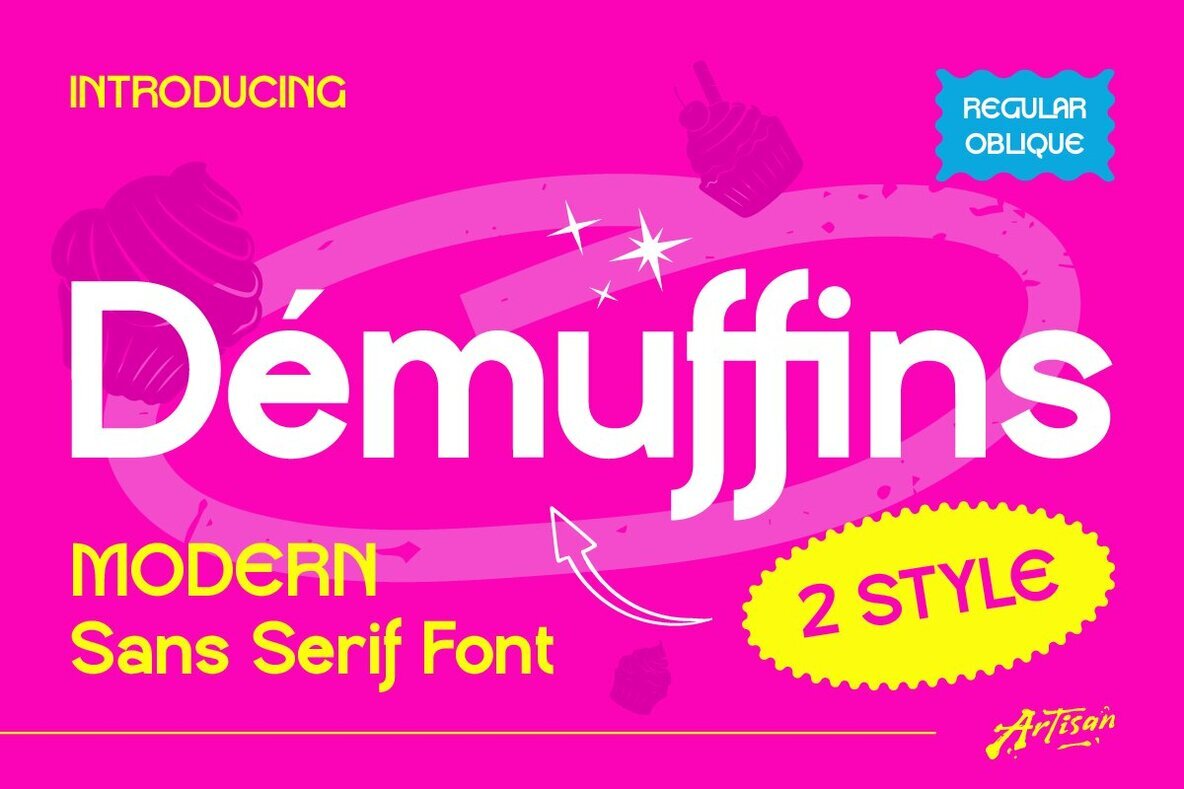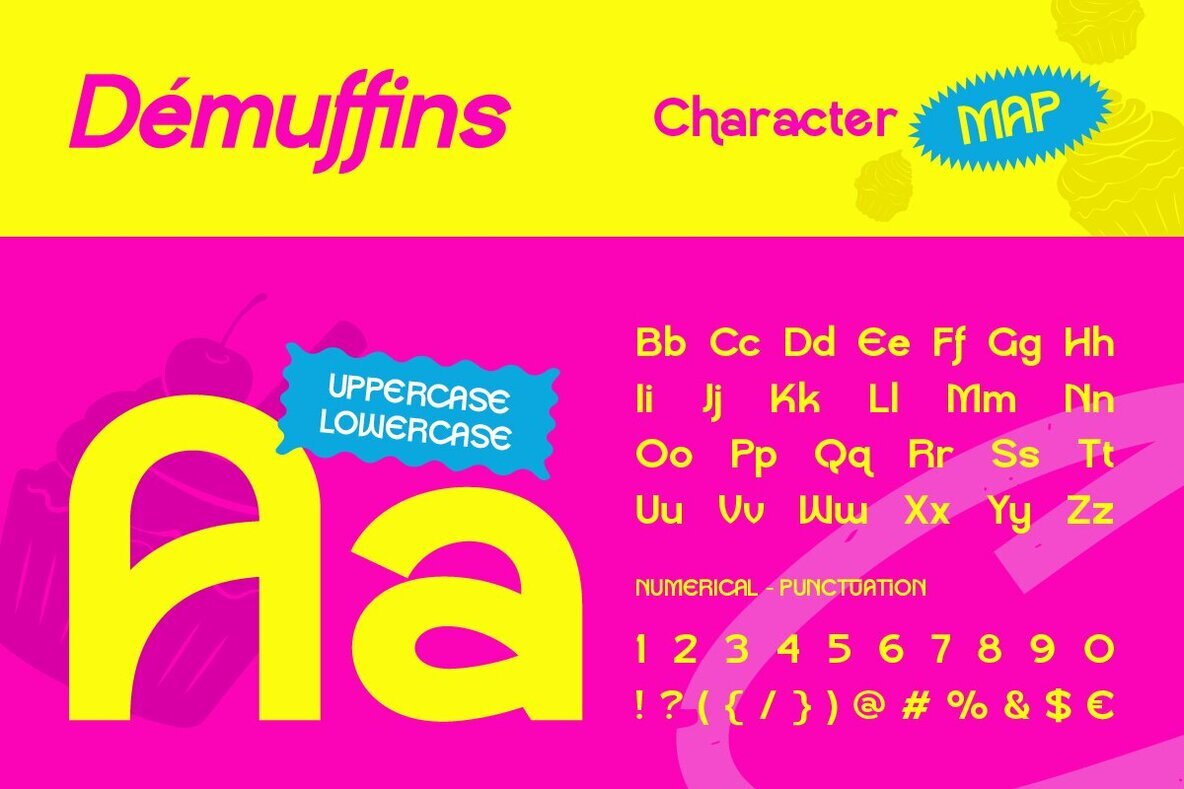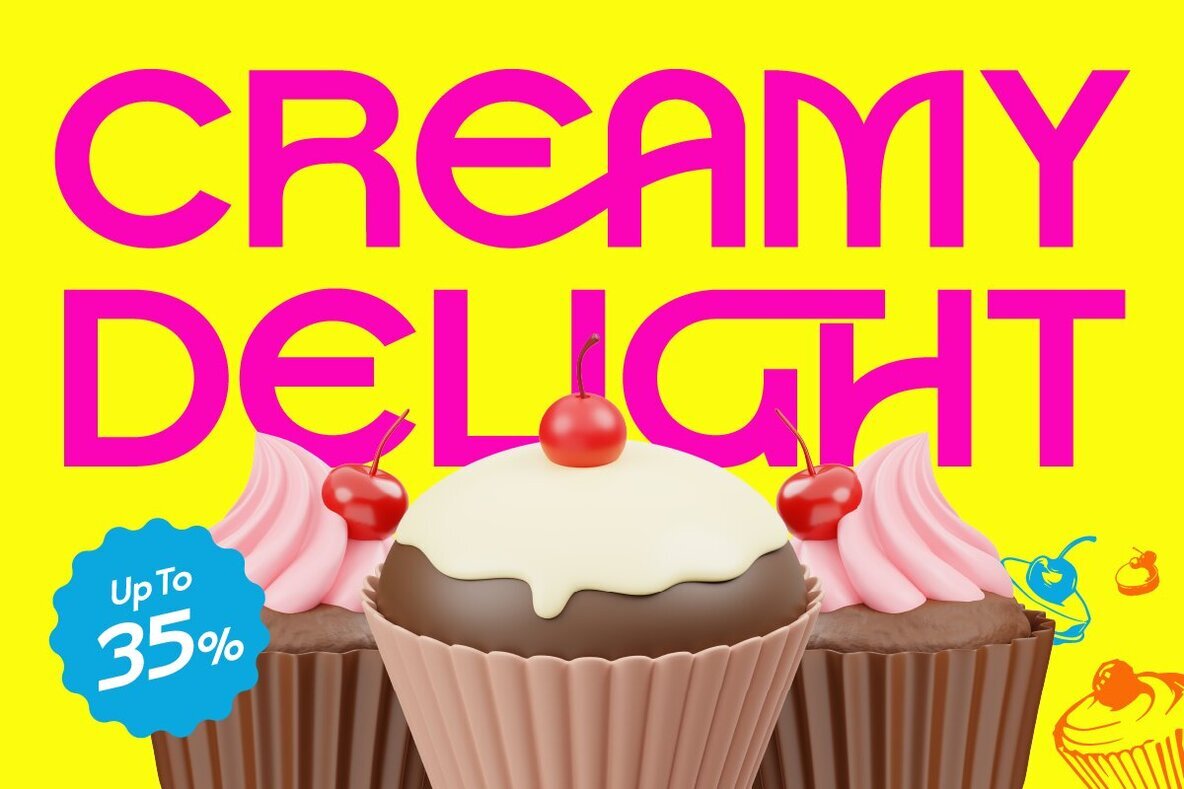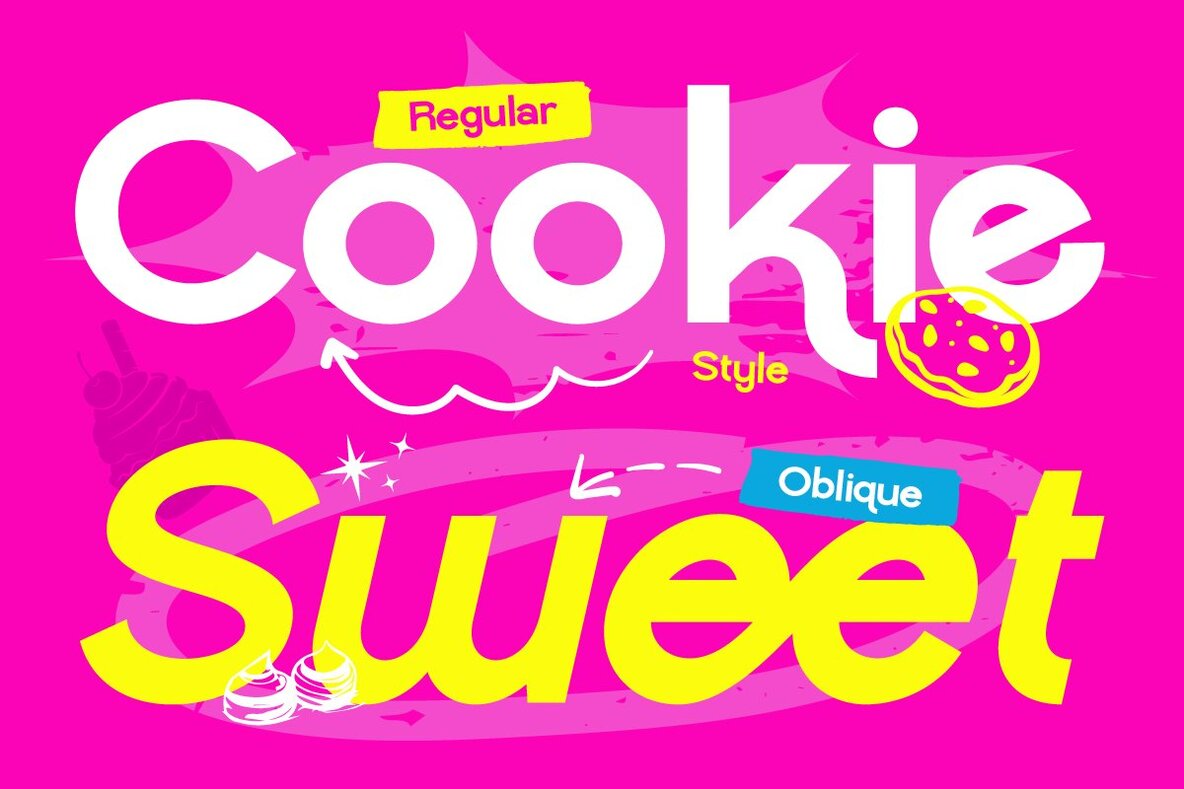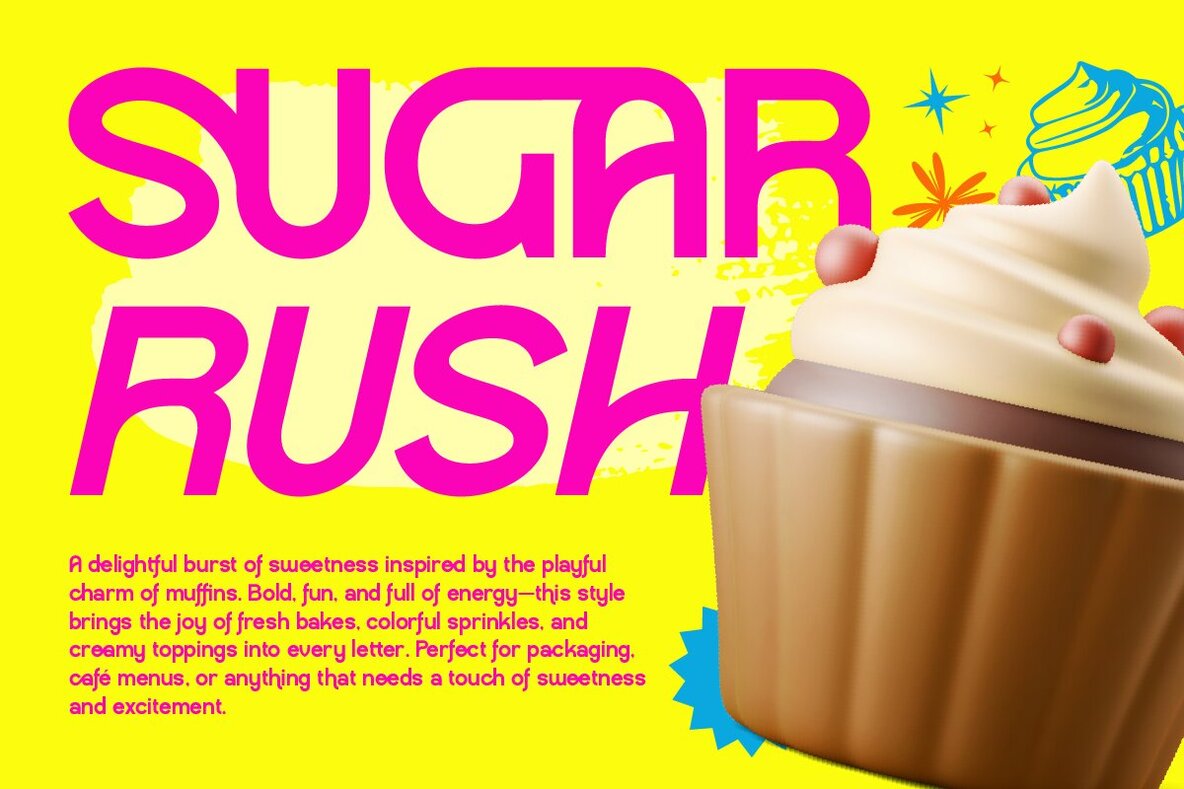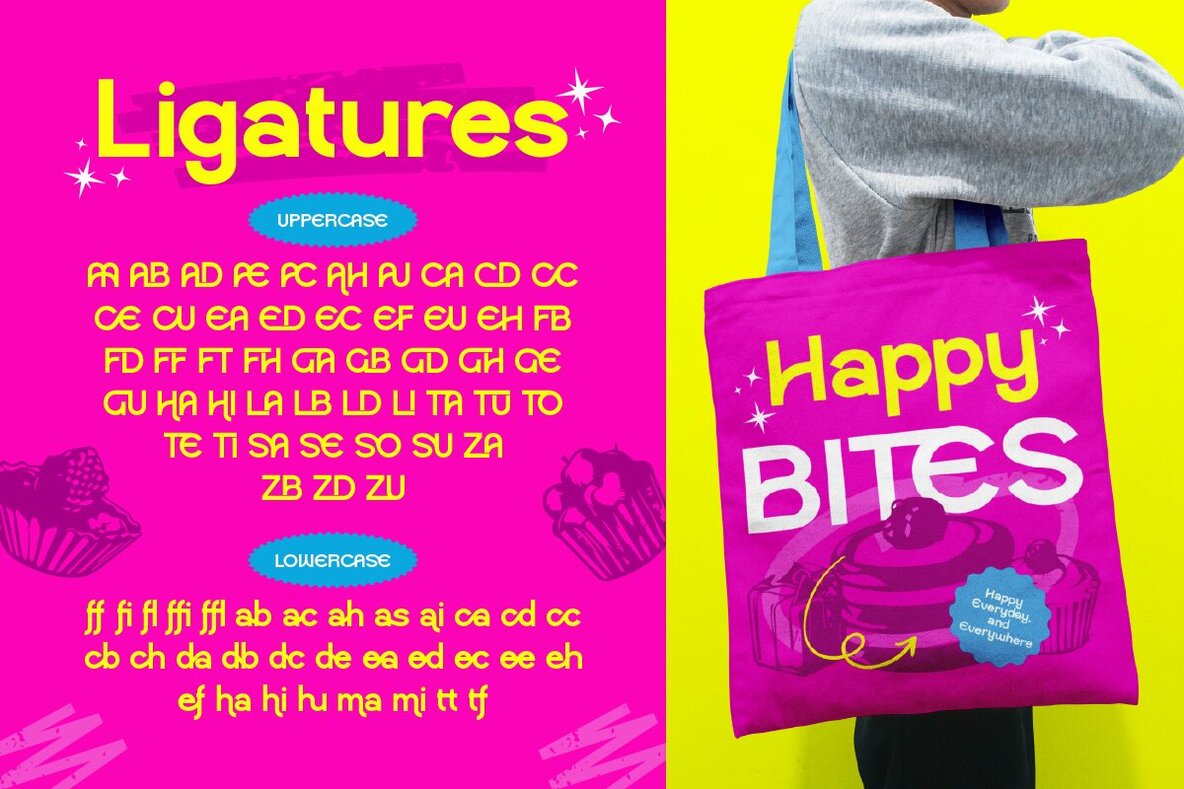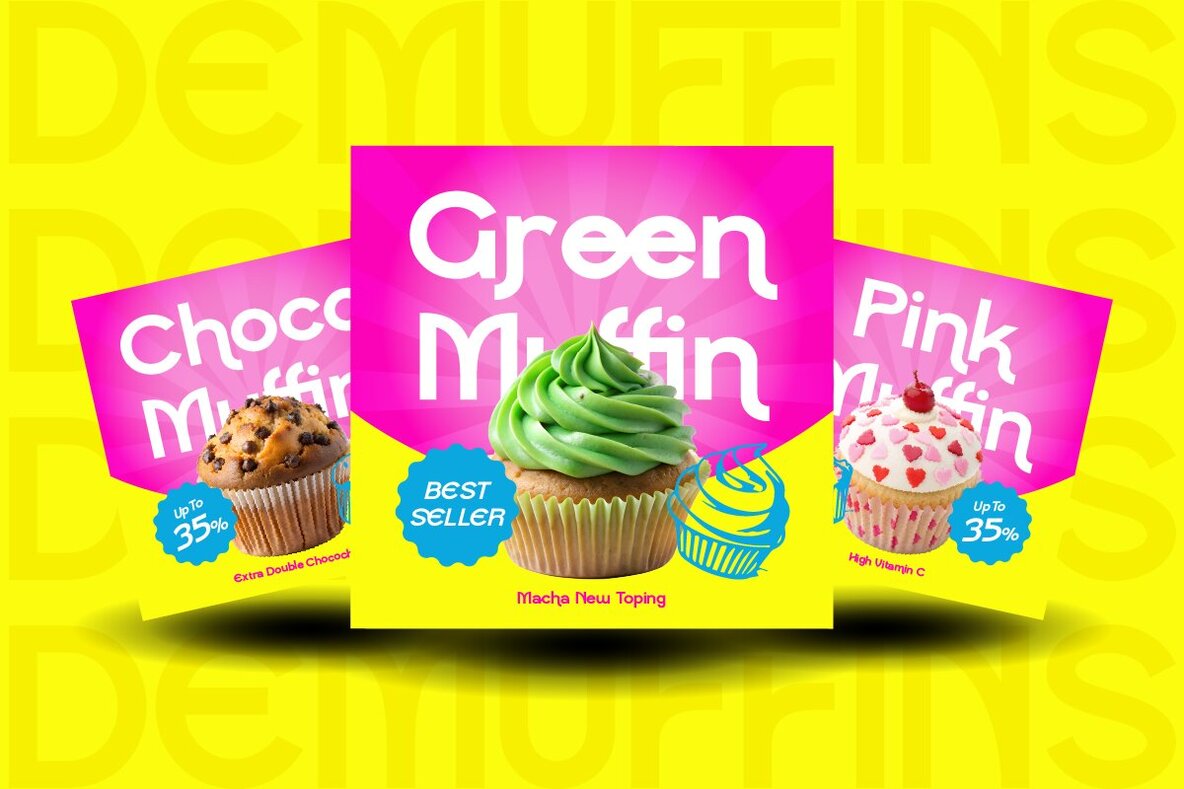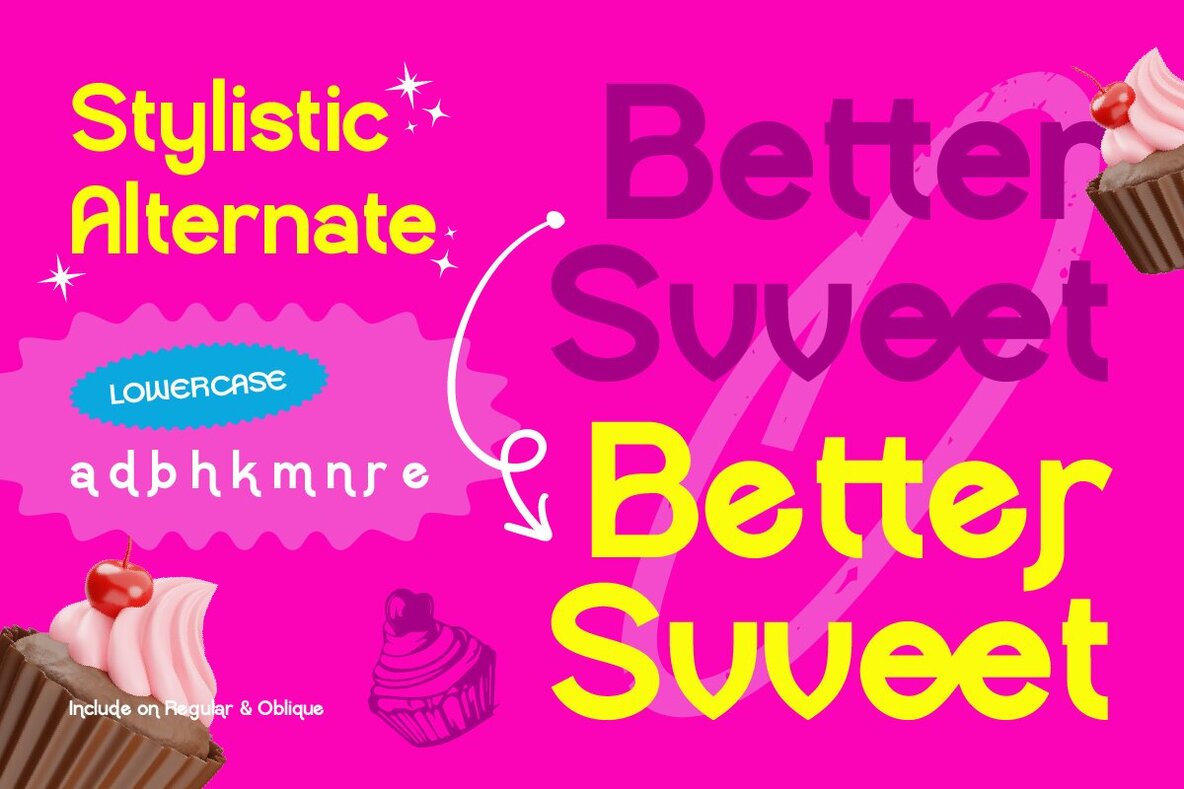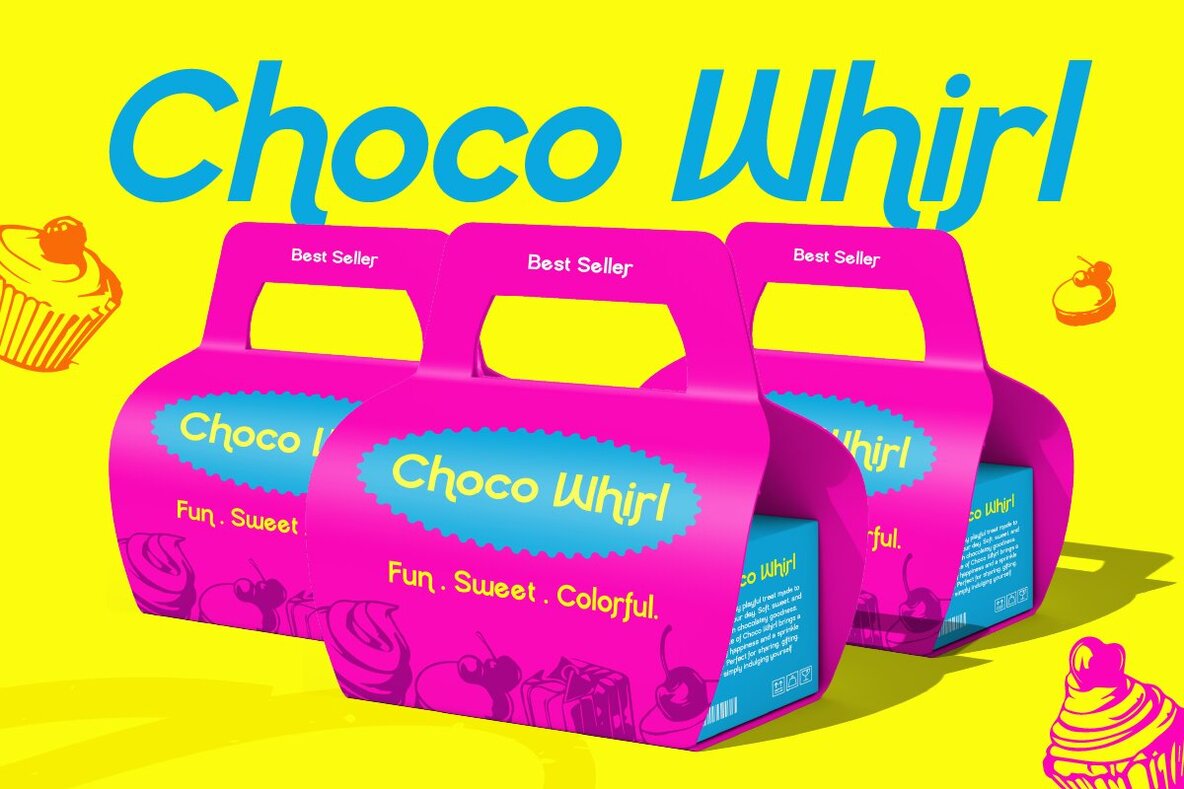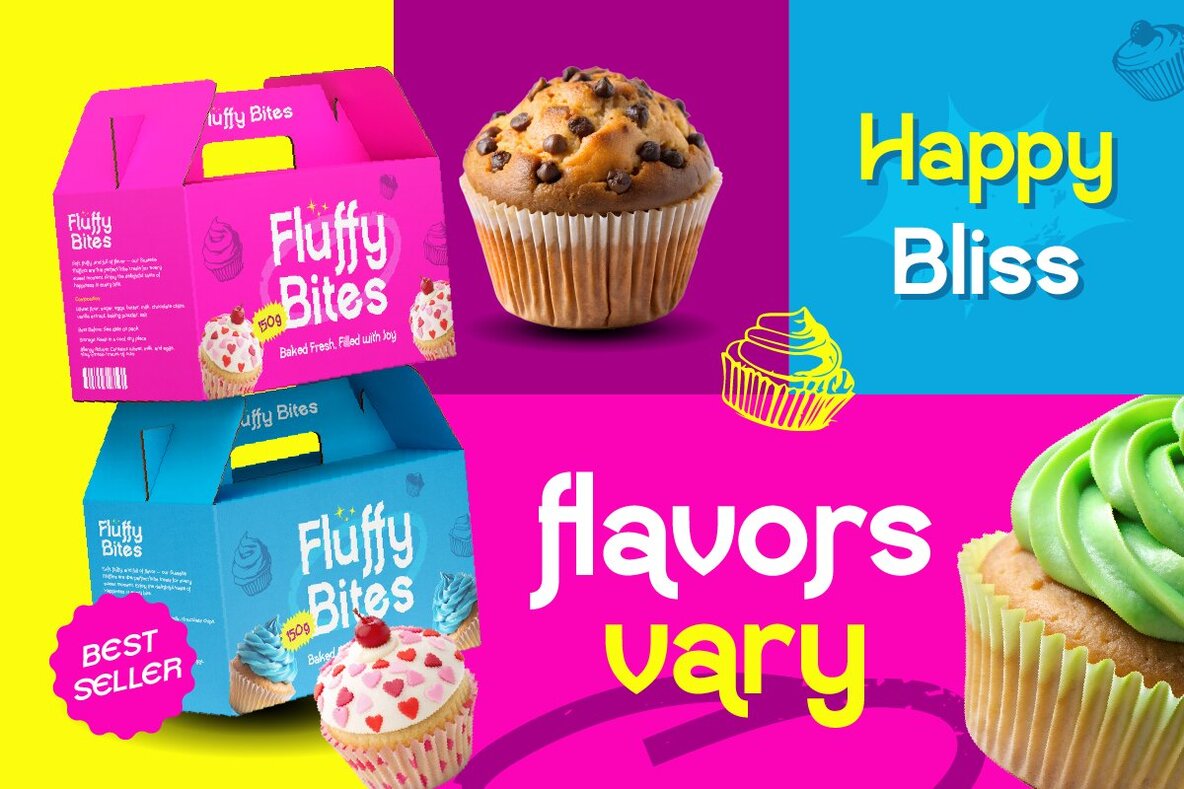
Demuffins Font
Demuffins Regular
Demuffins Oblique
Demuffins stands out as a modern sans serif font characterized by smooth curves and gently rounded edges. This typeface offers both Regular and Oblique styles, catering to projects that require a clean appearance as well as those seeking a more playful approach. The balanced, approachable letterforms ensure excellent readability and lend a friendly tone to any visual identity. Ideal for branding, food packaging, social media graphics, cafe menus, children's projects, or lifestyle blogs, Demuffins adapts with ease. Its cheerful sensibility is well-suited to projects aiming for a fresh, welcoming atmosphere—whether you are developing a logo for a bakery, designing vibrant posters, or adding warmth to digital communications.Demuffins: Contemporary Sans Serif With a Playful Edge